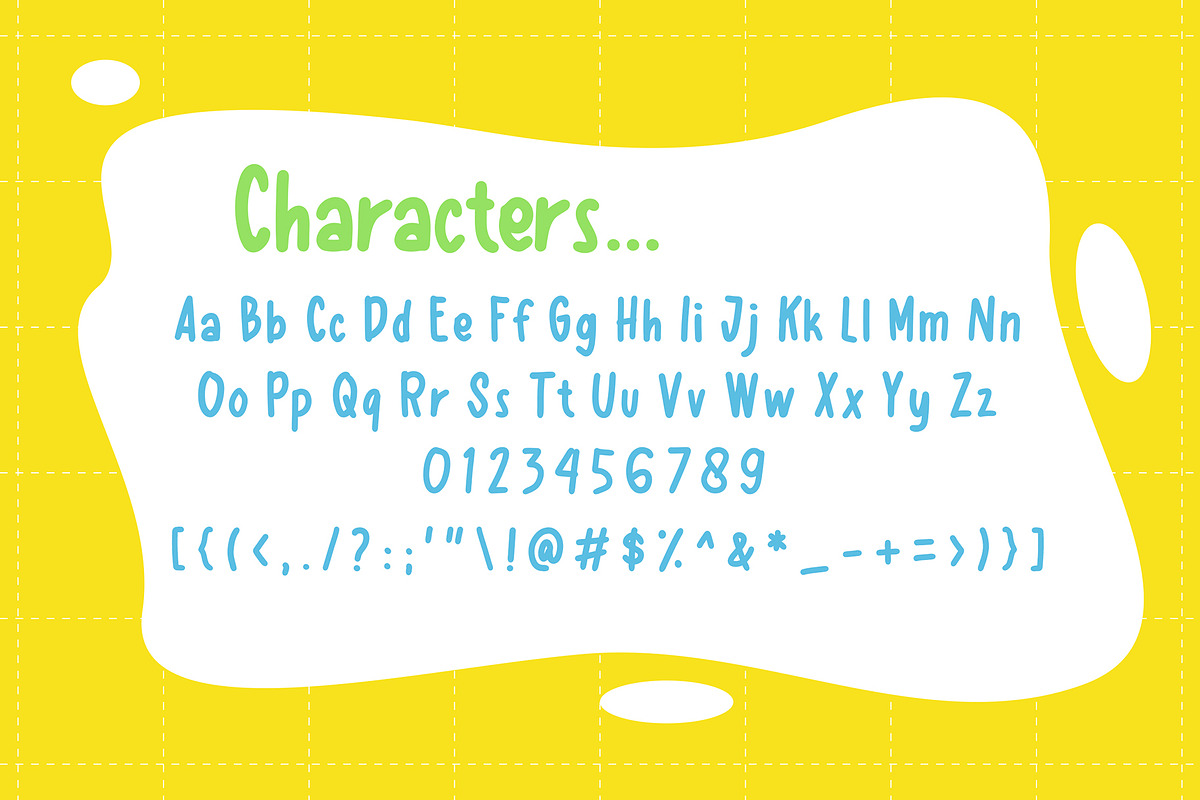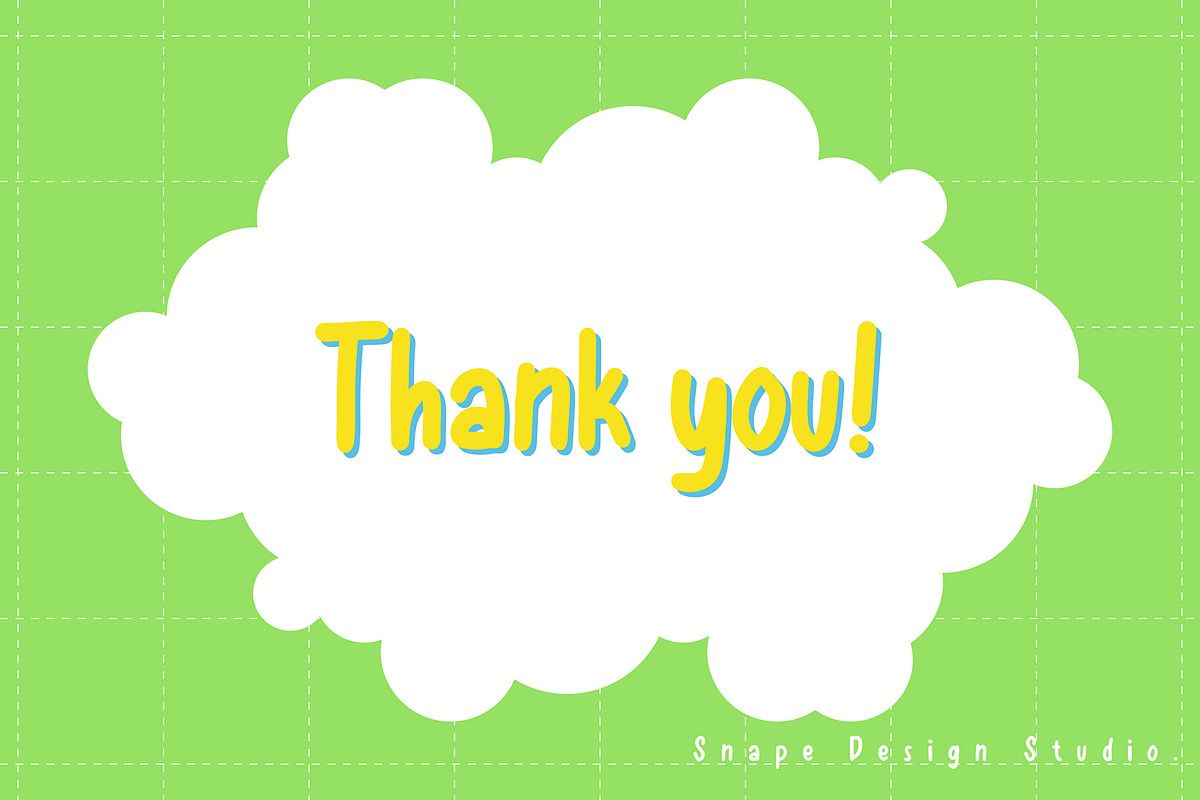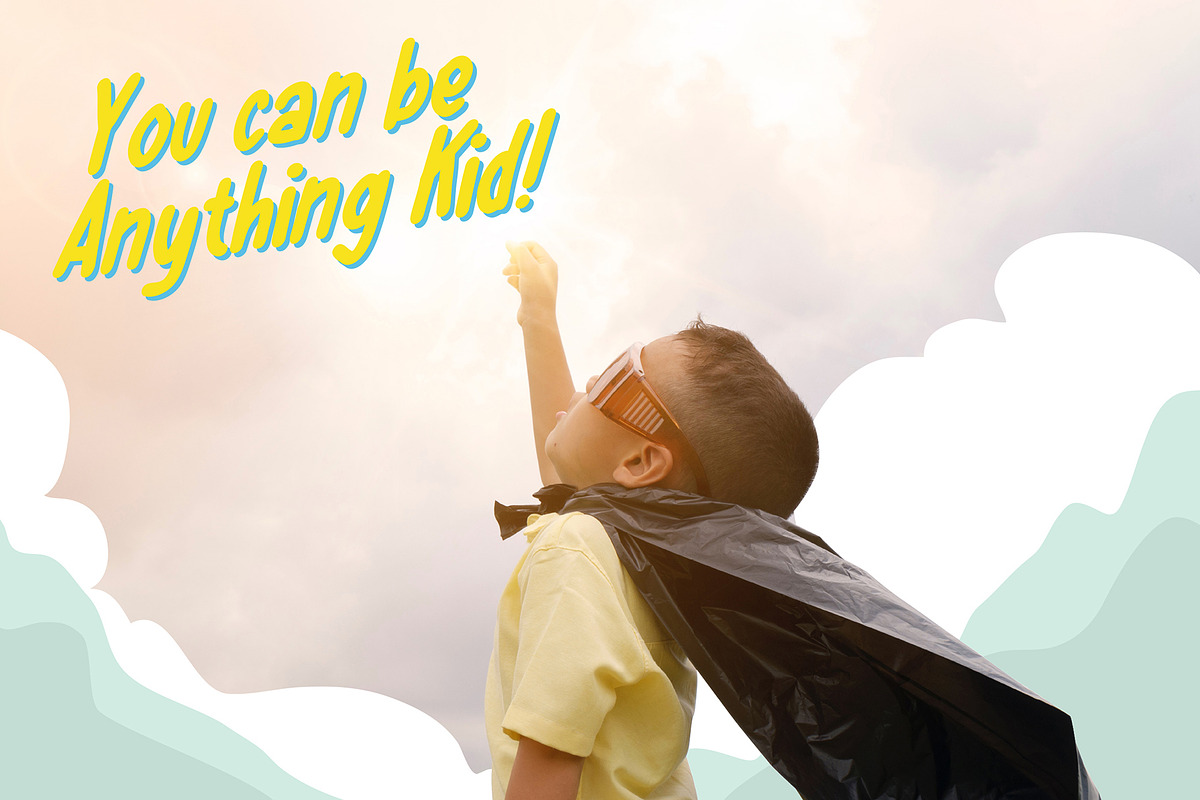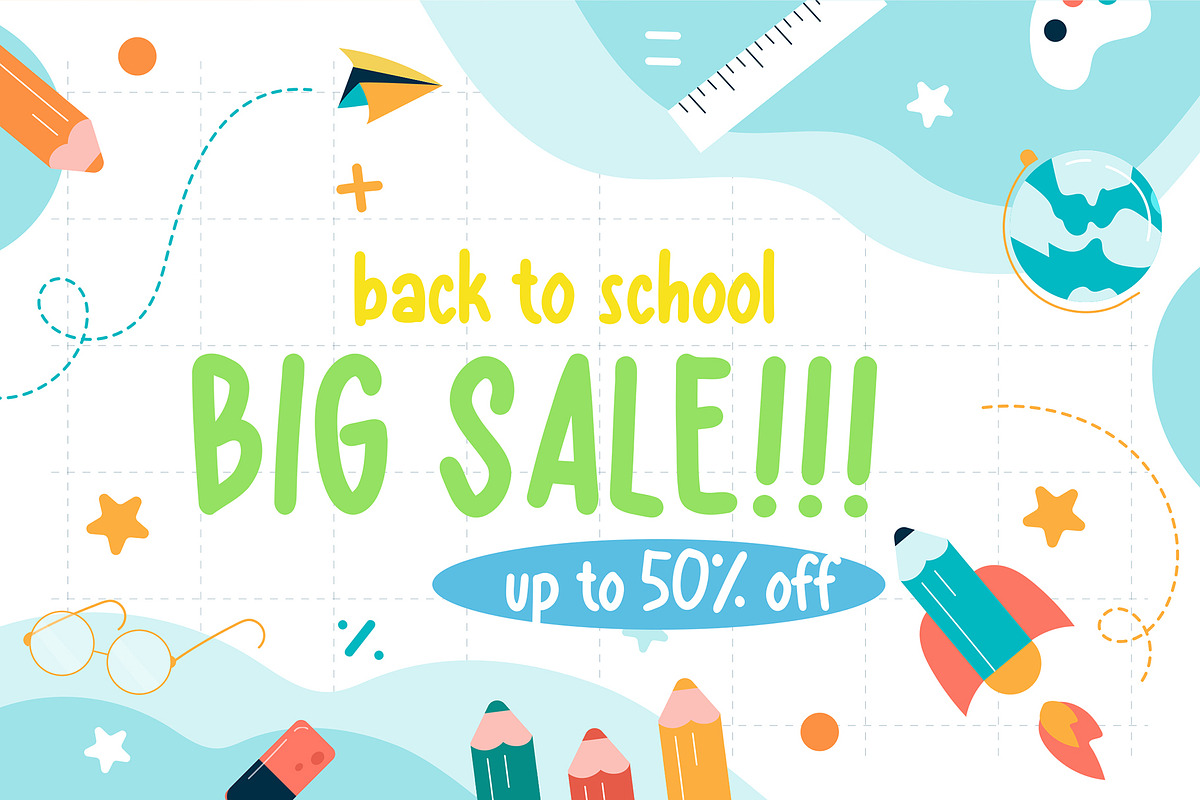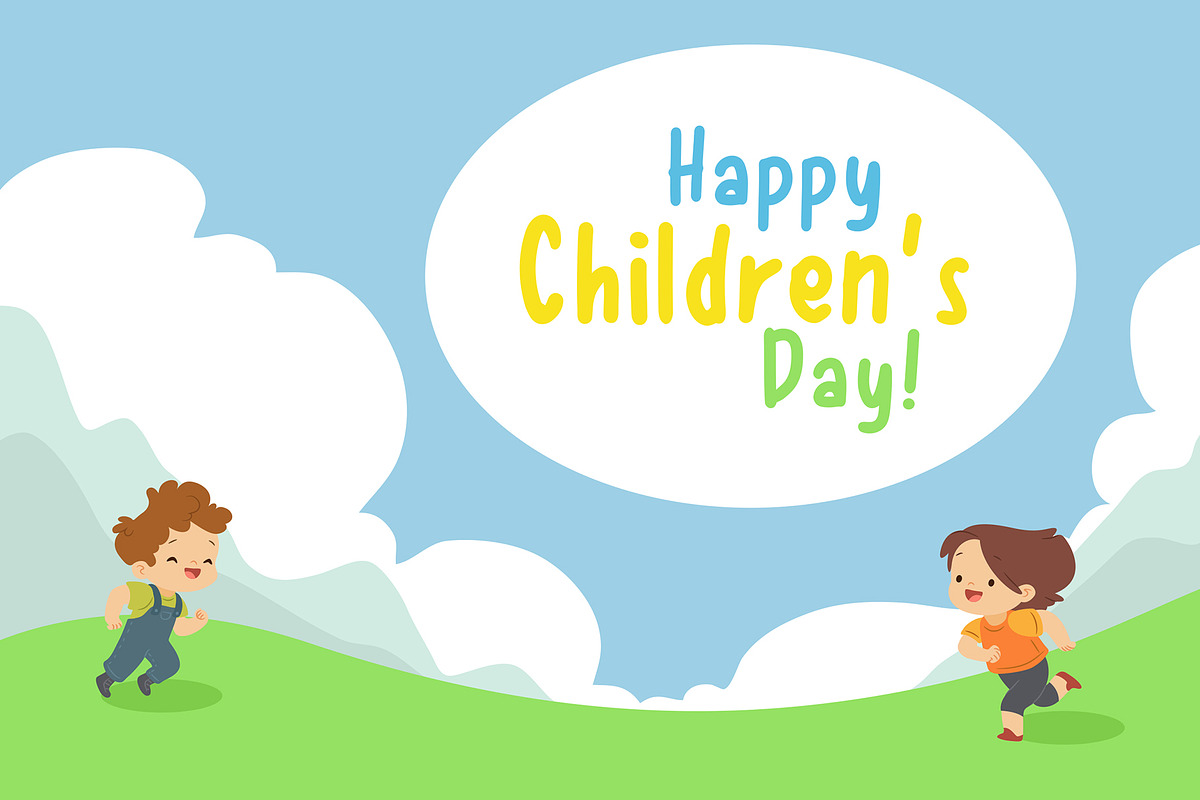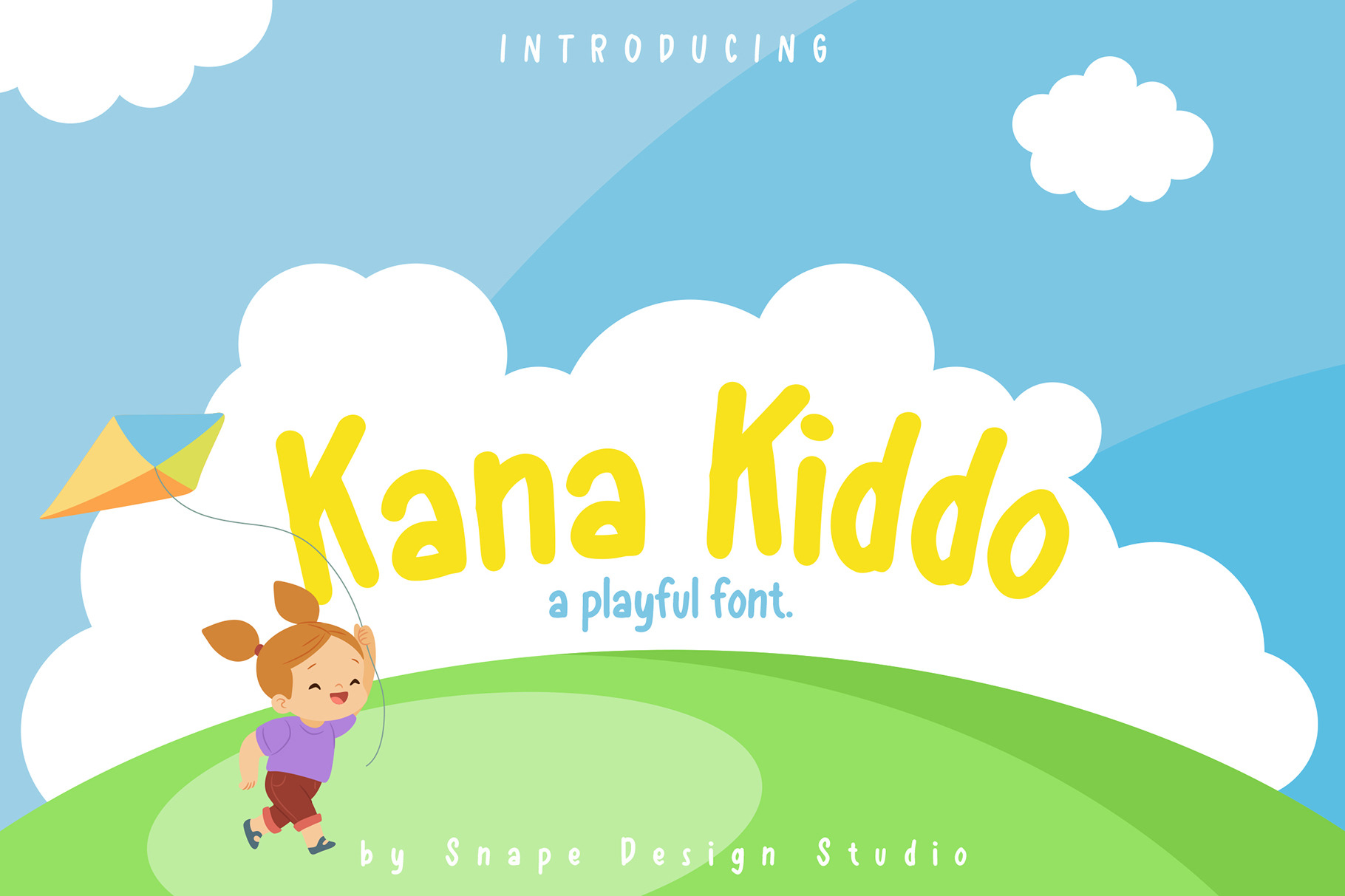
Kana Kiddo - Playful Font
Kana Kiddo is a sweet and a bit quirky handwritten font. Friendly and adept, this font will brighten up each of your school or children projects!
Great for vintage design, Invitation Card, Brochure, etc.